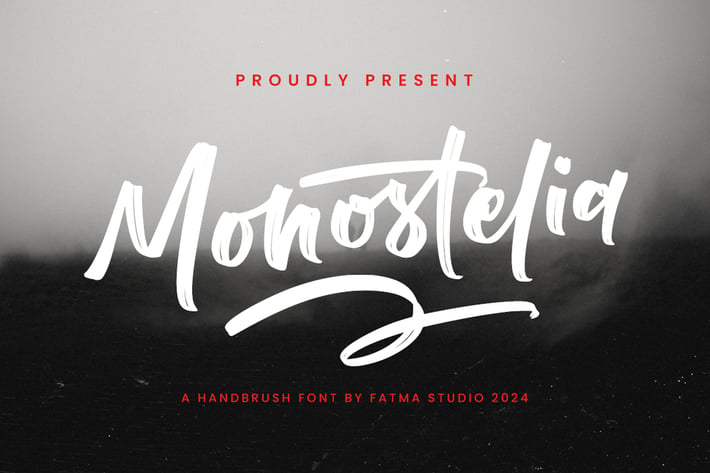
Monostelia - Brush Font
Monostelia is a contemporary typeface that embodies a casual yet refined brush-stroke style. It features expressive, fluid letterforms that mimic the natural movement of a brush on paper, giving it a dynamic and artistic feel. This font is characterized by its slightly uneven stroke widths and playful, irregular shapes, which contribute to its hand-crafted appearance.
Ideal for creative projects, Monostelia works well for branding, invitations, social media graphics, and any design where a touch of personal flair and spontaneity is desired. Its stylish and approachable design makes it suitable for both headlines and short texts, offering a blend of sophistication and informality.